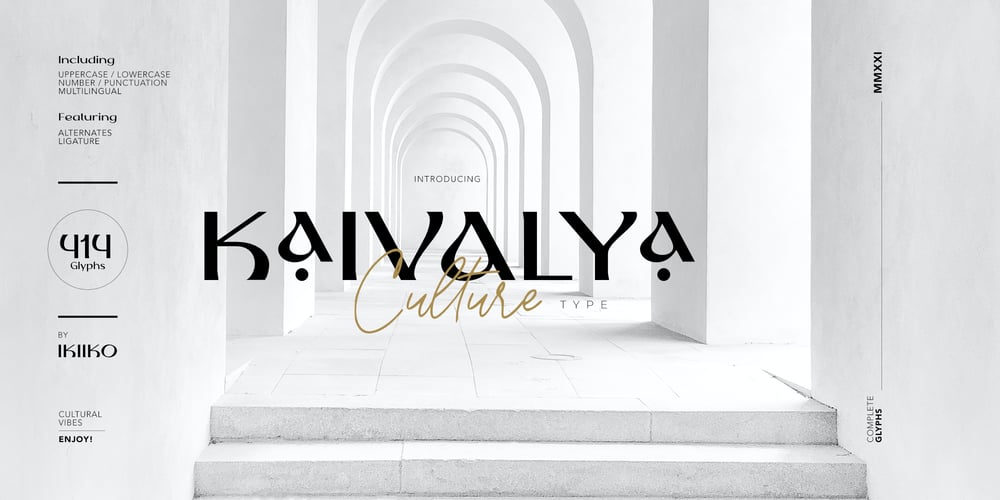
Kaivalya
Kaivalya font
Kaivalya Font Family was designed by Wahyu Eka Prasetya, Andhika Pradana and published by IKIIKOWRK. Kaivalya contains 1 styles and family package options. Introducing KAIVALYA – Cultural Type, created by ikiiko.A cultural font that has beautiful gestures, with a touch of tradition. Kaivalya is a serif typeface with many stylistic and ligature to choose. This typeface is perfect for an elegant logo, yoga & meditation stuff, beauty product, packaging product, spa, community logo, magazine, quotes, or simply as a stylish text overlay to any background image.What’s included? Uppercase & Lowercase Number & Punctuation Ligature & Alternates Multilingual Support Get also a good offer & FREEBIE at our site : www.ikiiko.comEnjoy our font and if you have any questions, you can contact us by email : ikiikowrk@gmail.com